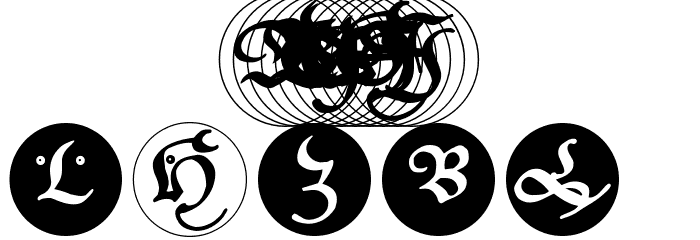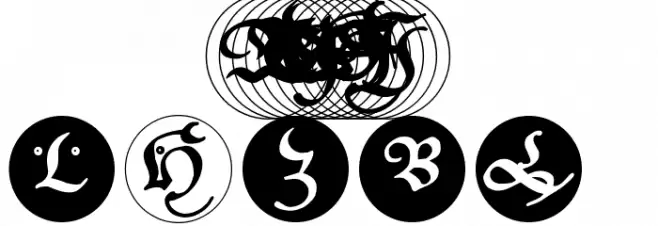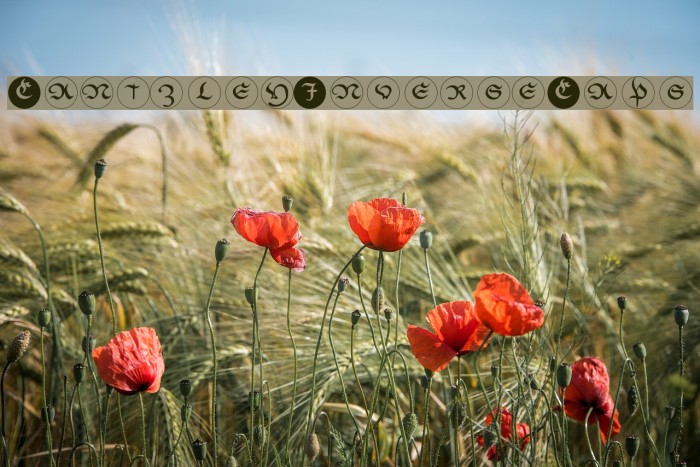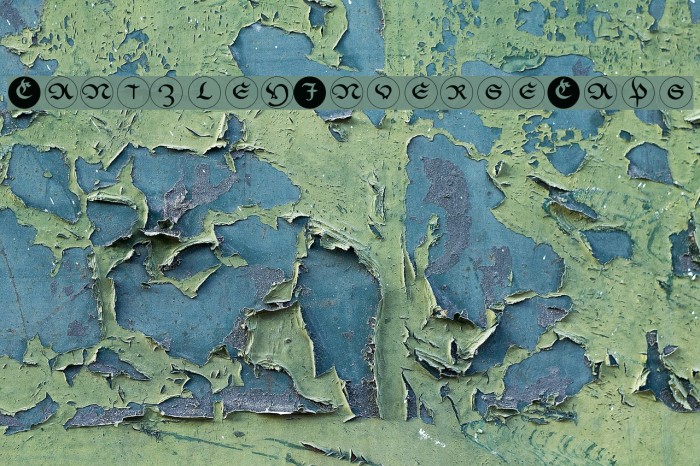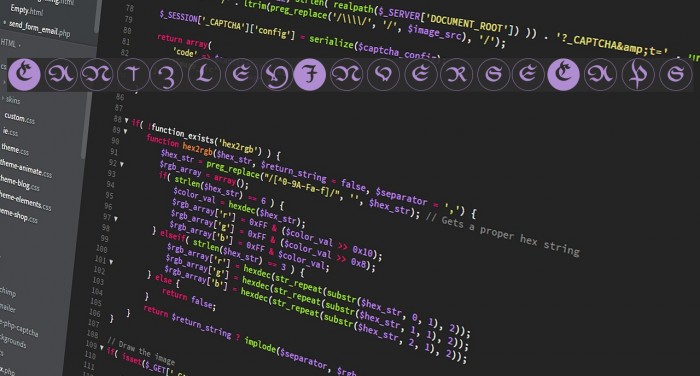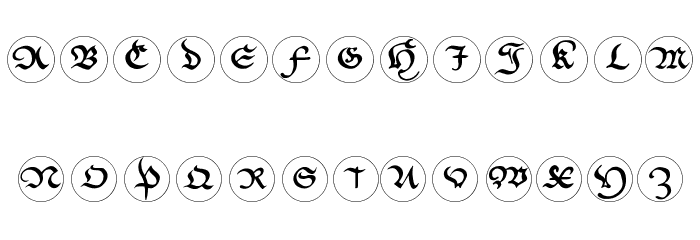
CantzleyInverseCaps Font
CantzleyInverseCaps Description
This font features an intricate and ornate design, reminiscent of traditional calligraphy with a modern twist. Each letter is enclosed in a circular shape, creating a unique and cohesive look. The uppercase letters are bold and elaborate, with flourishes and curves that give them a decorative appearance. The lowercase letters maintain the same style, ensuring consistency throughout the font. The numbers and special characters are equally detailed, making them stand out. This font is perfect for projects that require a touch of elegance and sophistication, such as invitations, logos, or branding materials. Its distinct style makes it ideal for use in headlines or as a focal point in design work.
An ornate, calligraphy-inspired font with circular enclosures and decorative flourishes from Uncategorized fonts.
- Proposed Projects: Ideal for invitations, logos, branding, and decorative headlines.
- Use Case: Headlines, Logos, Invitations